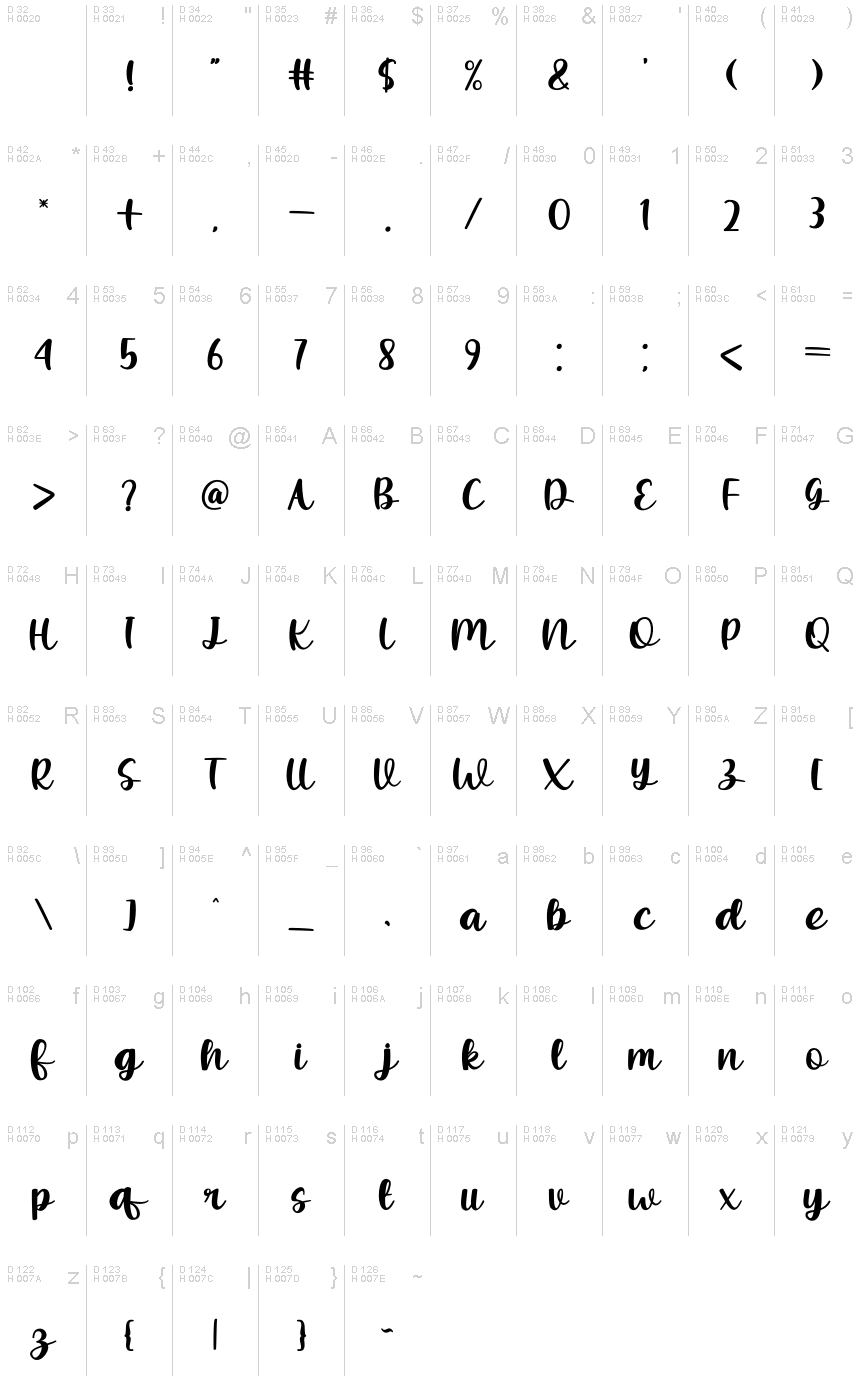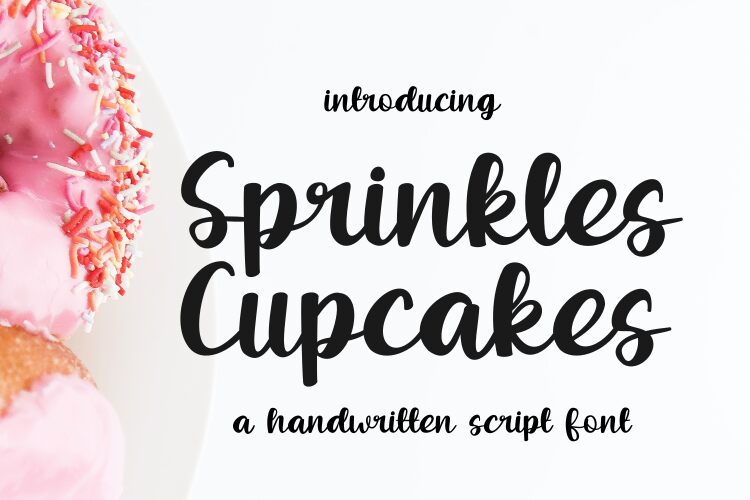
Sprinkles Cupcakes
Sprinkles Cupcakes is a charming, handcrafted brush font that exudes a delightful, whimsical flair. Designed by Rvandtype, this font boasts an organic, playful aesthetic with its fluid, sweeping strokes and playful ligatures. The irregular, hand-drawn letters lend a sense of warmth and personality, making it a perfect choice for branding, packaging, and creative projects that seek to capture a homemade, artisanal vibe.
Sprinkles Cupcakes is versatile, lending itself well to both display text and body copy, and can be effectively utilized in a wide range of applications, from bakery logos and product labeling to greeting cards and children's stationery.